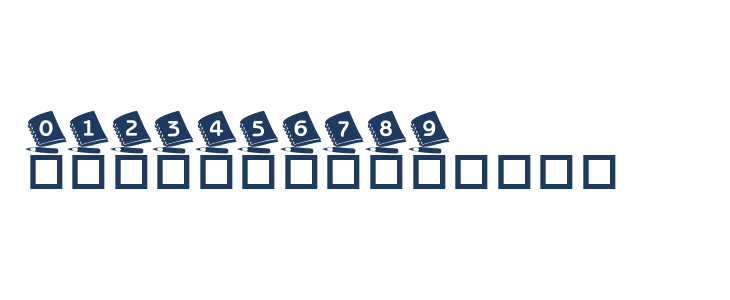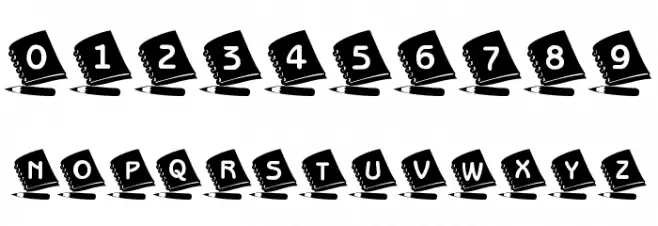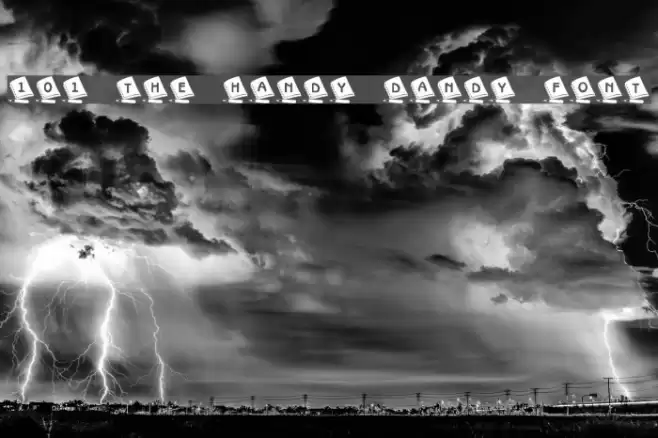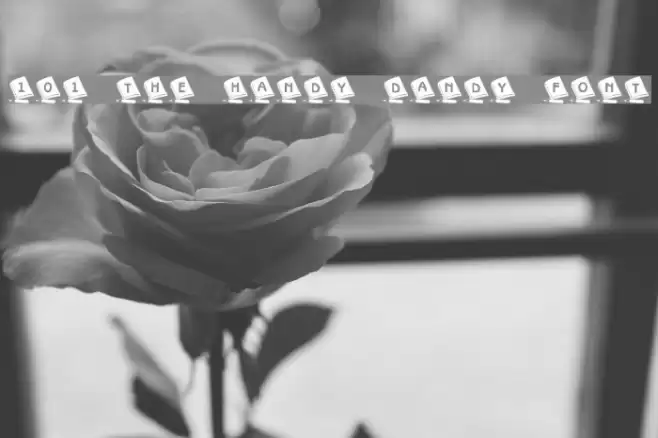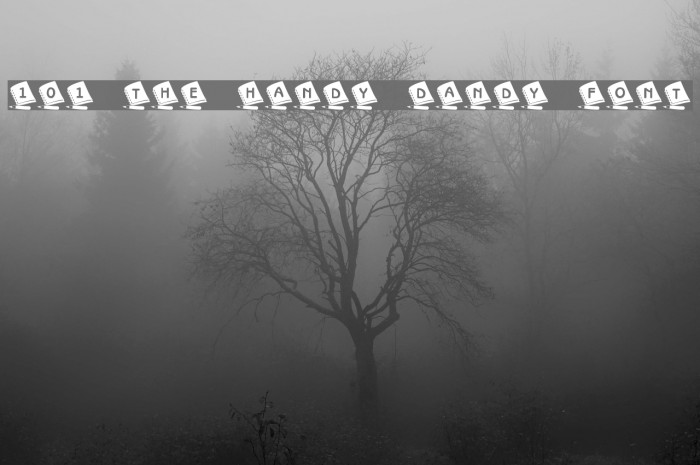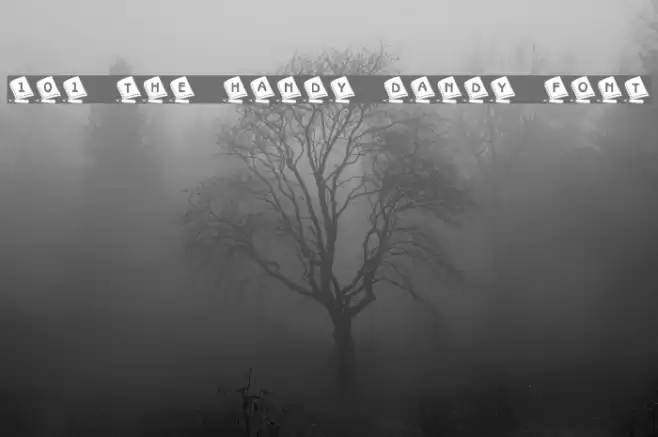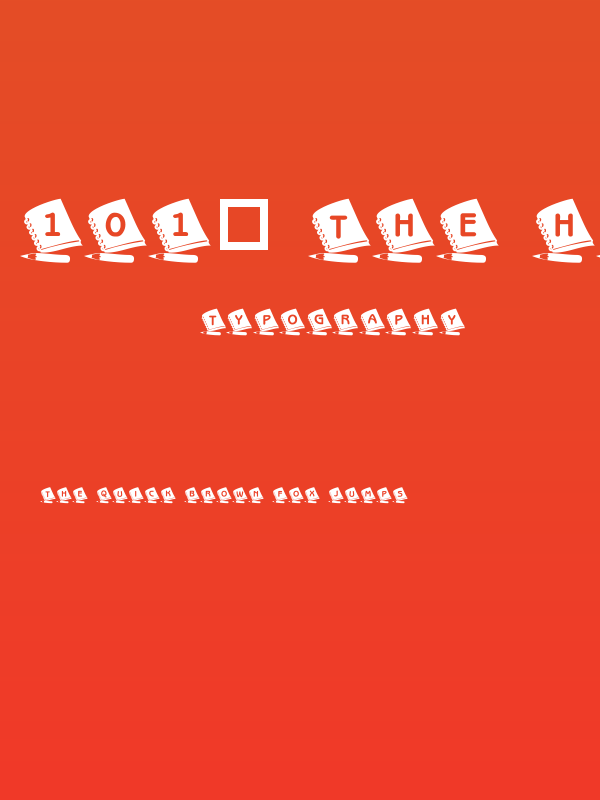
101! The Handy Dandy Font Font
101! The Handy Dandy Font Description
This playful and whimsical font features letters that appear to be written on a tilted notebook page, complete with a spiral binding on the left side. Each character is enclosed within a rectangular shape that mimics a page, giving the font a unique and creative look. The letters are bold and slightly slanted, adding to the dynamic and fun aesthetic. The font includes both uppercase and lowercase letters, numbers, and a selection of special characters. Its distinctive style makes it ideal for projects that require a touch of creativity and playfulness.
| Overall Style | Playful, Creative |
| Proposed Projects | Ideal for children's books, educational materials, playful branding, and creative posters. |